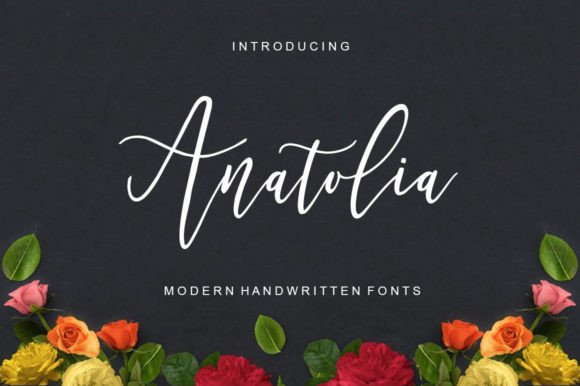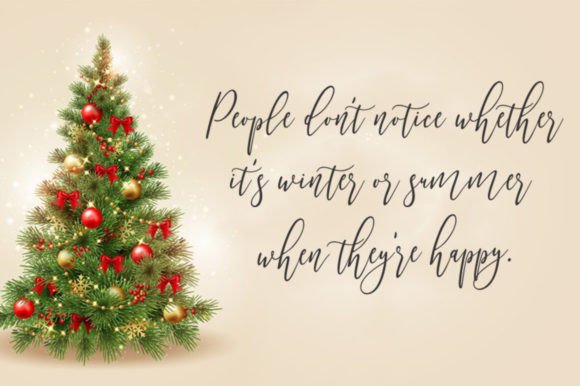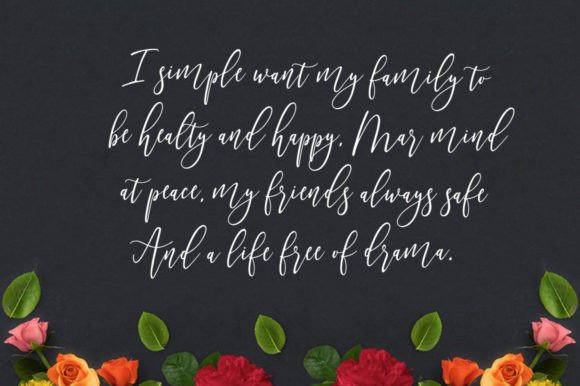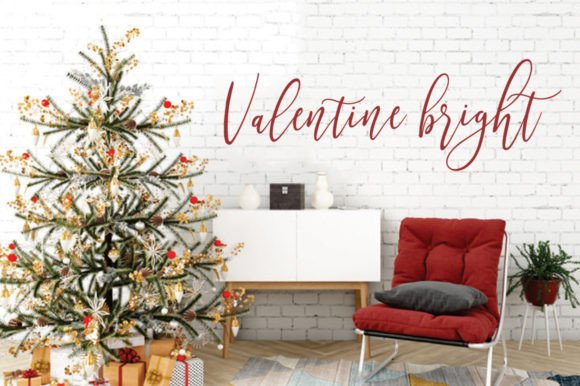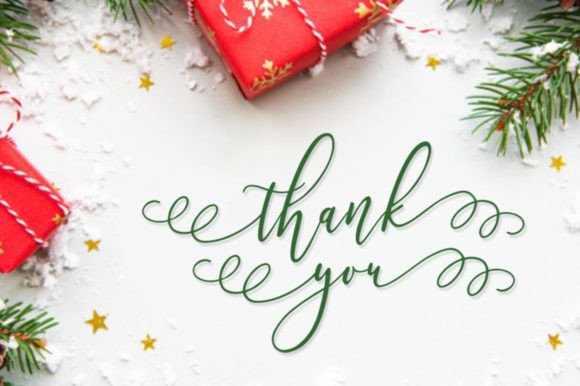
Anatolia Font
About Anatolia Font
Anatolia is a spectacular scripted font. Incredibly versatile, this font fits a wide pool of designs, elevating them to the highest levels. Add this font to your favorite creative ideas and notice how it makes them come alive!